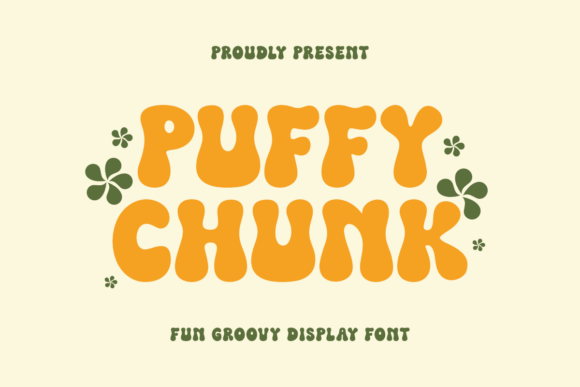
Puffy Chunk Font: The Ultimate Typeface for Adding a Touch of Romance and Joy
In the world of typography, fonts play a crucial role in conveying the tone and personality of a design. When it comes to creating love-themed designs, posters, greeting cards, or any project that needs a touch of romance and joy, the right font can make all the difference. This is where the Puffy Chunk font comes in – a fun and playful typeface that is bursting with charm and personality.
What is Puffy Chunk Font?
Puffy Chunk is a bold and cheerful font that is perfect for adding a pop of happiness to your creations. Its lively letterforms are designed to bring a touch of romance and joy to any design project. Whether you’re working on a love-themed design, a poster, or a greeting card, this font is sure to make your project stand out.
Key Features of Puffy Chunk Font
- Bold and Cheerful Letterforms: The Puffy Chunk font features bold and cheerful letterforms that are sure to grab attention.
- Perfect for Love-Themed Designs: This font is ideal for love-themed designs, posters, greeting cards, or any project that needs a touch of romance and joy.
- Playful and Fun: The Puffy Chunk font has a playful and fun personality that is sure to add a pop of happiness to your creations.
- Easy to Read: Despite its bold and playful design, the Puffy Chunk font is easy to read, making it perfect for use in a variety of design projects.
Usage Ideas for Puffy Chunk Font
The Puffy Chunk font is versatile and can be used in a variety of design projects. Here are some usage ideas to get you started:
- Love-Themed Designs: Use the Puffy Chunk font to create romantic designs, such as Valentine’s Day cards, wedding invitations, or love-themed posters.
- Posters and Flyers: Add a pop of happiness to your posters and flyers with the Puffy Chunk font.
- Greeting Cards: Use the Puffy Chunk font to create cheerful and playful greeting cards for special occasions.
- Social Media Graphics: Add a touch of romance and joy to your social media graphics with the Puffy Chunk font.
Tips and Tricks for Using Puffy Chunk Font
Here are some tips and tricks to help you get the most out of the Puffy Chunk font:
- Pair with Other Fonts: Pair the Puffy Chunk font with other fonts to create a unique and interesting design.
- Experiment with Colors: Experiment with different colors to find the perfect combination that matches your design.
- Use in Combination with Images: Use the Puffy Chunk font in combination with images to create a visually appealing design.
Benefits of Using Puffy Chunk Font
Here are some benefits of using the Puffy Chunk font in your design projects:
- Adds a Touch of Romance and Joy: The Puffy Chunk font adds a touch of romance and joy to any design project.
- Increases Readability: The bold and playful design of the Puffy Chunk font makes it easy to read, even at small sizes.
- Versatile: The Puffy Chunk font is versatile and can be used in a variety of design projects.
In conclusion, the Puffy Chunk font is a fun and playful typeface that is perfect for adding a touch of romance and joy to any design project. Its bold and cheerful letterforms make it ideal for love-themed designs, posters, greeting cards, or any project that needs a pop of happiness. With its versatility, ease of use, and range of benefits, the Puffy Chunk font is a great addition to any designer’s toolkit.